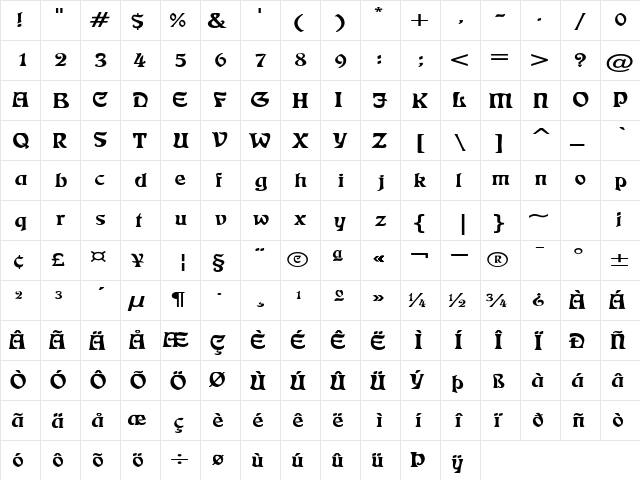
LushlifeExtended Regular Font Preview
LushlifeExtended Regular
LushlifeExtended Regular Font Details
Design Context for LushlifeExtended Typeface
LushlifeExtended takes a measured approach to typography — its balanced proportions and neutral character make it a reliable workhorse for both digital and print work.